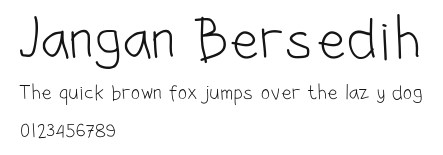
• Font Name: Jangan Bersedih
• Full Font Name: Jangan Bersedih
• Character Count: 74
About Jangan Bersedih.ttf
Jangan Bersedih.ttf is a modern, elegant sans-serif font designed for ultimate readability and visual harmony. Perfect for branding, headlines, web design, and print materials.